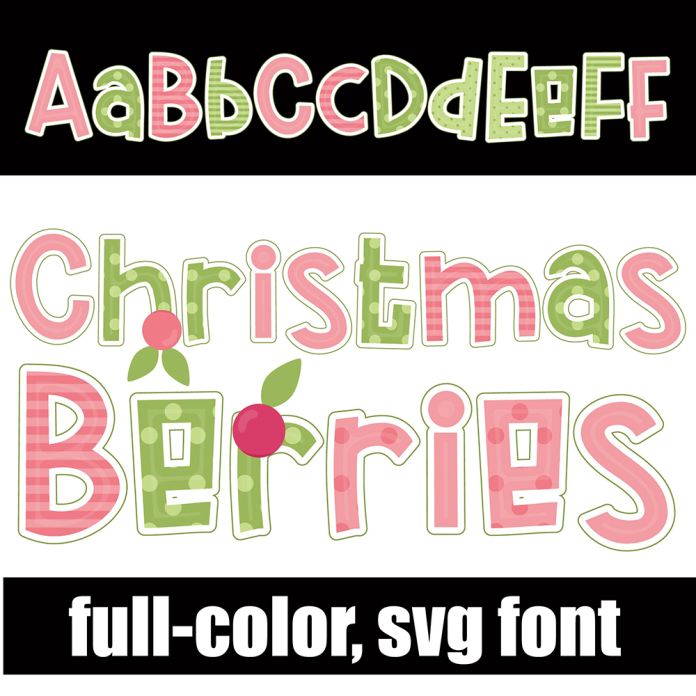
This full-color font features Christmas-colored lettering w/ patterns and bonus berries (the greater than and less symbols) that you can use to accent your lettering. There is an alt case with an additional color of each letter. This font works best for titles, displays, posters and more. Please note color fonts will show as black in non compatible programs. This font type is compatible with Silhouette Studio.